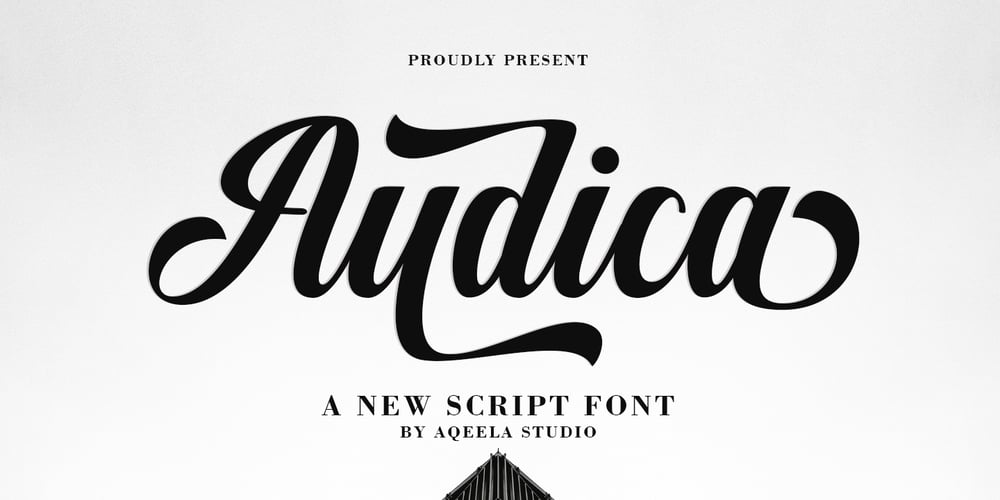
Audica
Audica font
Audica Font Family was designed by Muhammad Nasir and published by Aqeela Studio. Audica contains 1 styles and family package options. Audica is an exquisite vintage-style script font that exudes timeless elegance and sophistication. Its flowing cursive strokes and intricate details add a touch of charm to any design project. Perfect for invitations, logos, branding, and packaging, this font evokes a sense of nostalgia while maintaining a modern edge. With Audica, elevate your creations with its graceful and captivating allure.